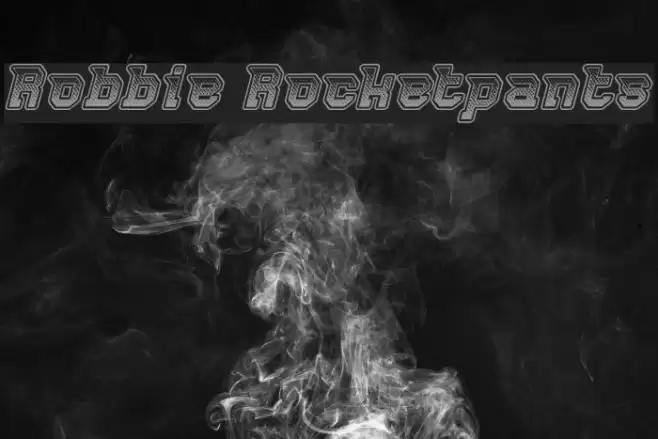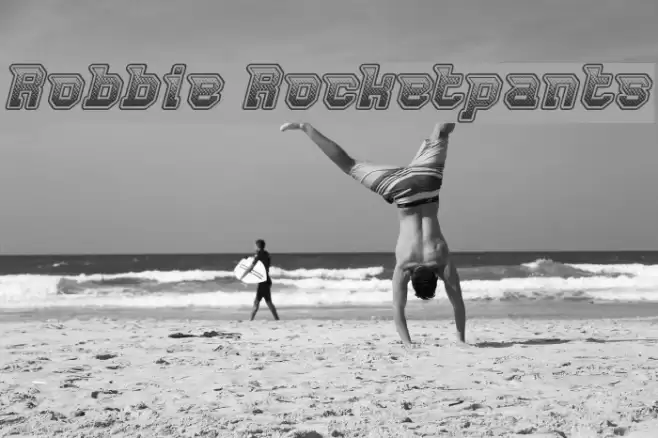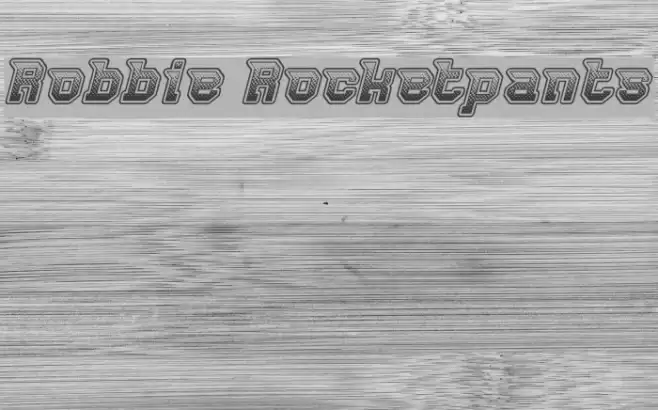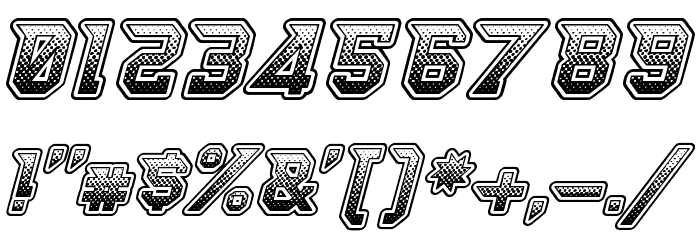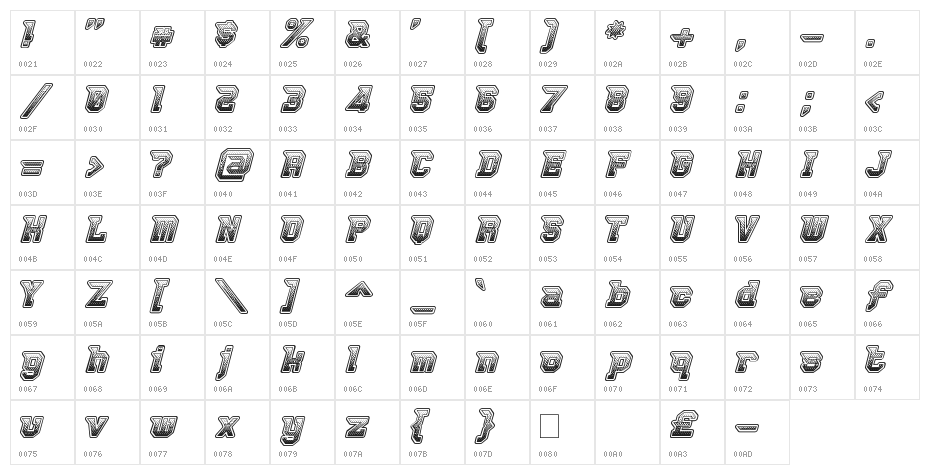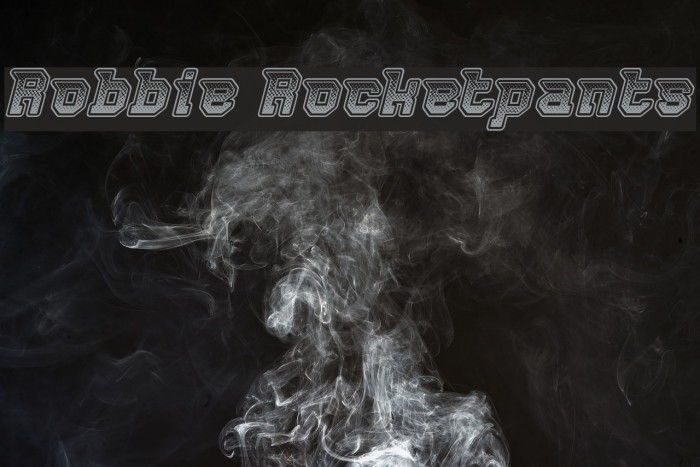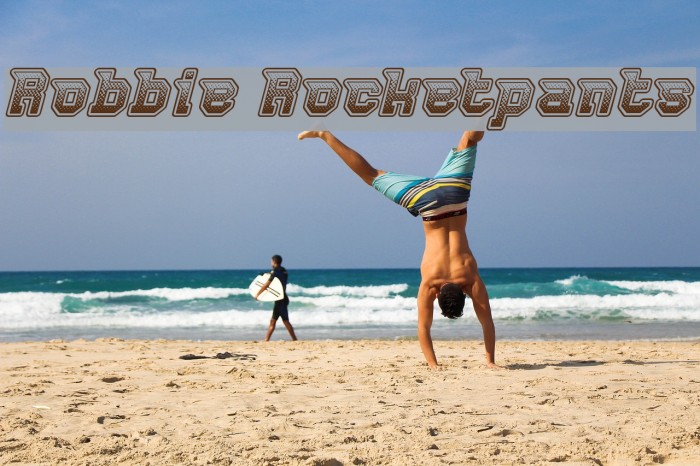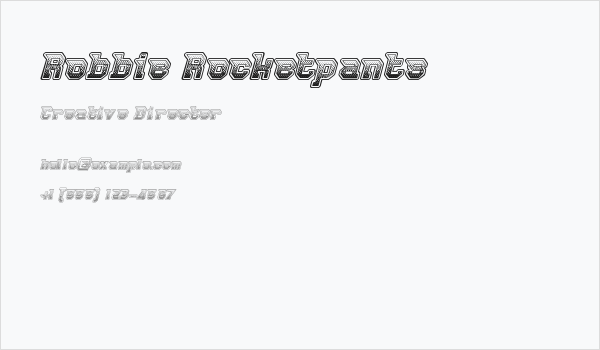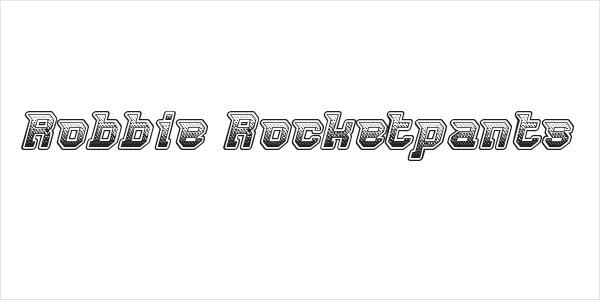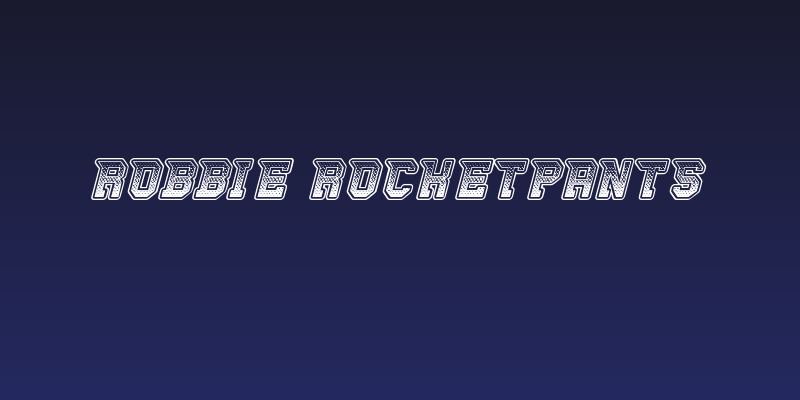
Robbie Rocketpants Font
Robbie Rocketpants Description
This font features a bold, three-dimensional style with a dotted texture that gives it a dynamic and playful appearance. Each character is outlined with a thick black border, enhancing the 3D effect and making the letters stand out prominently. The design incorporates a retro-futuristic aesthetic, reminiscent of classic arcade games or comic book titles. The uppercase and lowercase letters maintain a consistent style, with the lowercase being slightly more compact. Numbers and special characters are designed with the same attention to detail, ensuring a cohesive look across all elements. The font's unique style makes it ideal for projects that require a bold and eye-catching typeface.
A bold, 3D font with a dotted texture and retro-futuristic style from Uncategorized fonts.
- Proposed Projects: Ideal for video game titles, comic book covers, posters, and branding that requires a bold, playful look.
- Overall Style: Retro-Futuristic